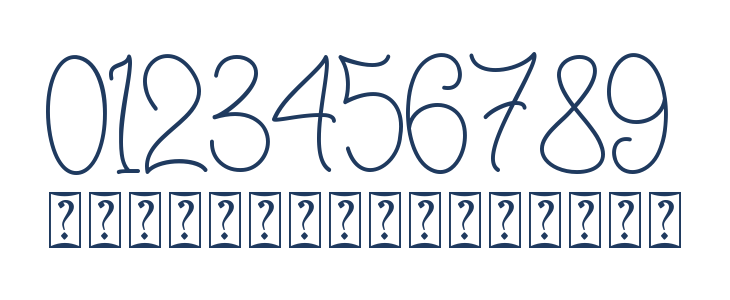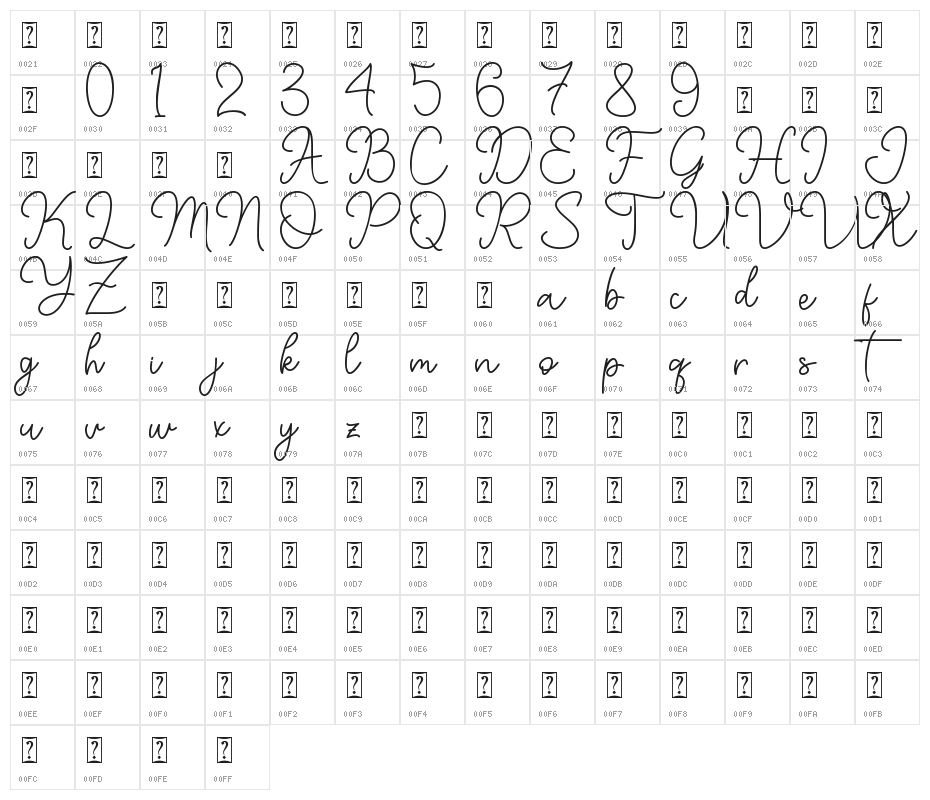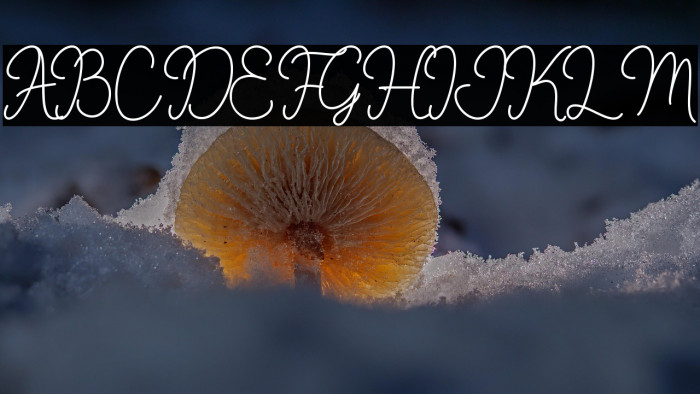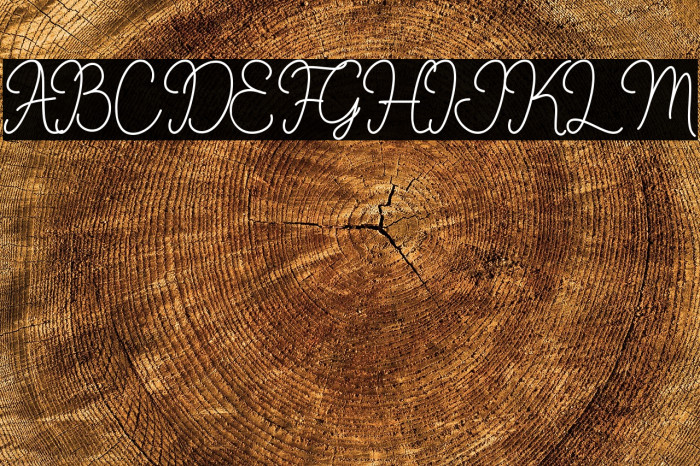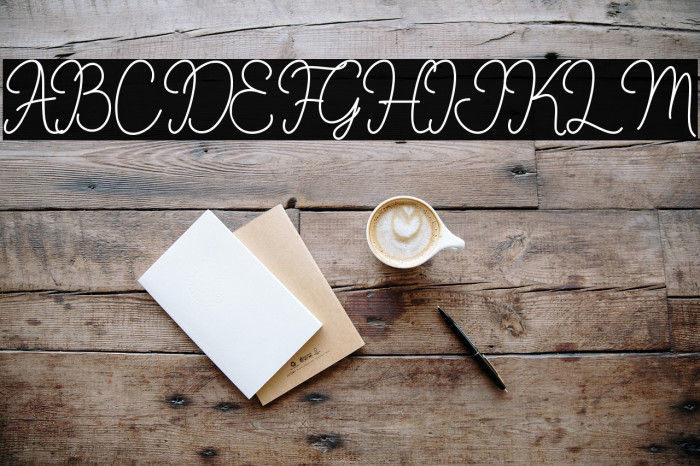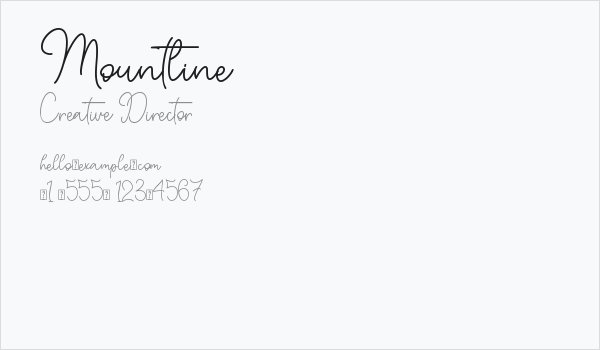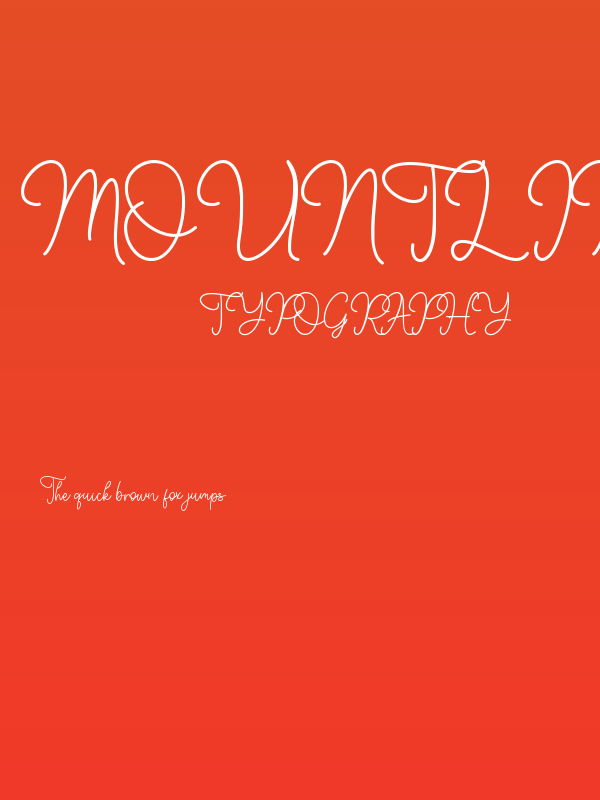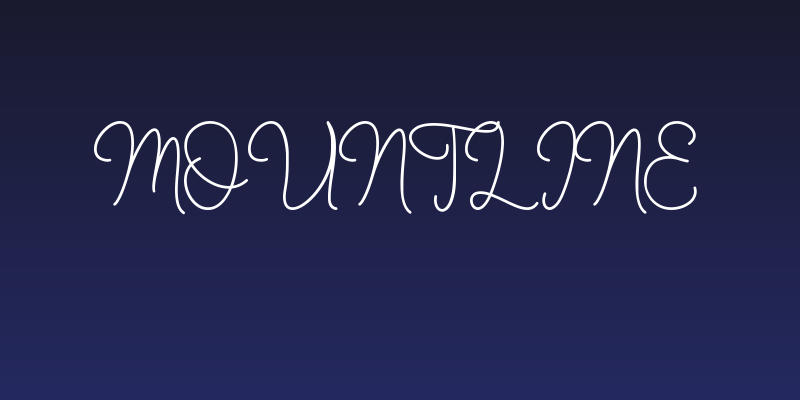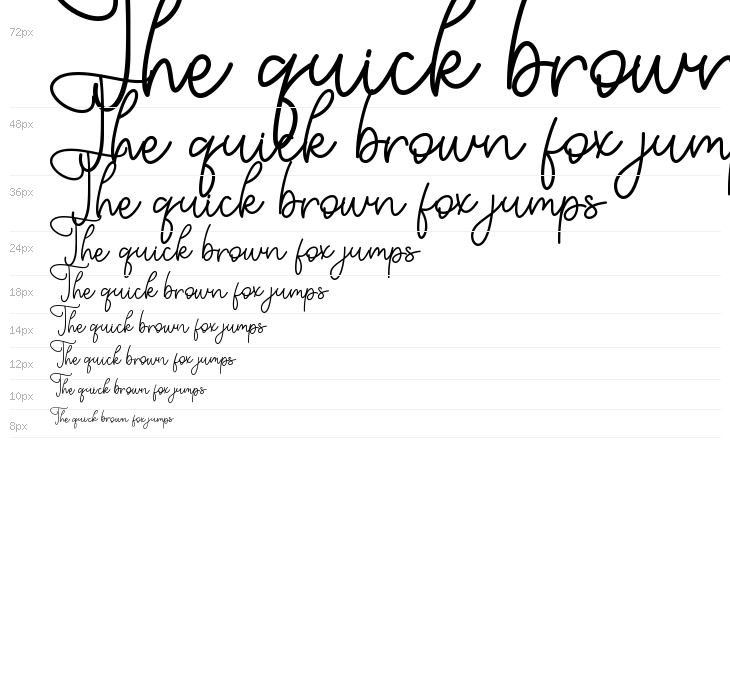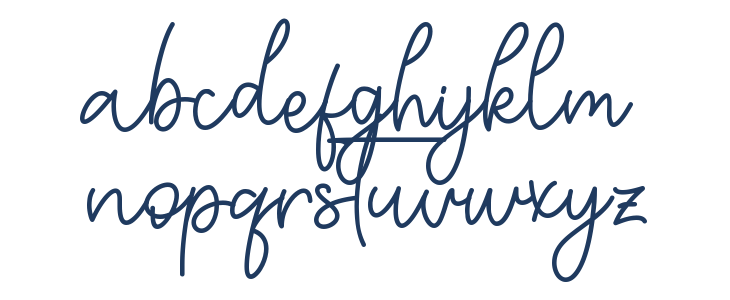
Mountline Font
Mountline Description
This font features a fluid, cursive style that combines elegance with readability. The uppercase letters are characterized by smooth, flowing lines and gentle curves, creating a sense of movement and grace. The lowercase letters maintain a consistent style, with a slightly more compact form that complements the uppercase. The numerals are designed with a similar fluidity, ensuring a cohesive look across all characters. The special characters are crafted to match the overall aesthetic, making this font suitable for a variety of creative applications.
| Overall Style | Elegant |
| Use Case | Logos, Invitations, Decorative text |
| Proposed Projects | Ideal for wedding invitations, greeting cards, branding, and logo design. |